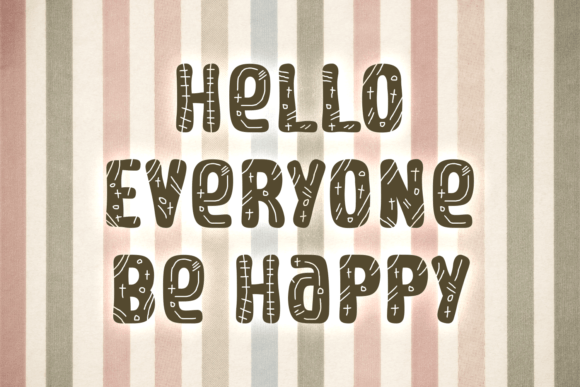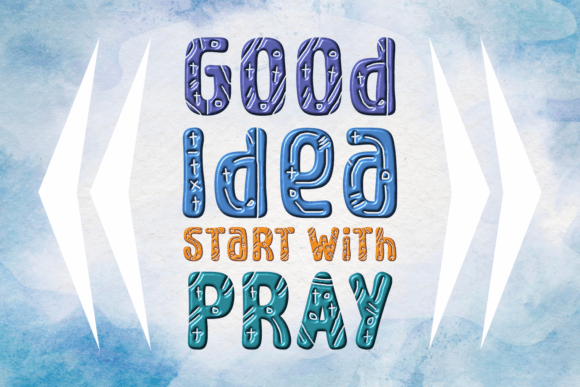
Introducing Cross Font: The Cute and Quirky Decorative Font with a Religious Twist
Are you tired of using the same old fonts in your designs? Do you want to add a touch of joy and whimsy to your creative projects? Look no further than Cross Font, a delightful and quirky decorative font that incorporates religious elements. With its unique blend of playfulness and spirituality, Cross Font is sure to make your designs stand out from the crowd.
What is Cross Font?
Cross Font is a beautiful display font that features a cute and quirky design with a subtle religious twist. The font is perfect for designers and crafters who want to add a touch of personality to their work. With its bold and playful lines, Cross Font is ideal for use in a variety of creative projects, from greeting cards and invitations to posters and social media graphics.
The Inspiration Behind Cross Font
The inspiration behind Cross Font is the desire to create a font that is both fun and meaningful. The font’s creator wanted to design a font that would bring a smile to people’s faces while also conveying a sense of spirituality and connection to something greater. The result is a font that is both joyful and uplifting, making it perfect for use in a wide range of creative projects.
Key Features of Cross Font
So, what makes Cross Font so special? Here are just a few of its key features:
• Cute and Quirky Design: Cross Font features a unique and playful design that is sure to add a touch of whimsy to your designs.
• Religious Elements: The font incorporates subtle religious elements, making it perfect for use in projects that require a touch of spirituality.
• Bold and Playful Lines: The font’s bold and playful lines make it ideal for use in a wide range of creative projects, from greeting cards and invitations to posters and social media graphics.
• Easy to Read: Despite its playful design, Cross Font is easy to read, making it perfect for use in projects where clarity is important.
Font Name Cross Font
Author Yan (7NTypes)
In conclusion, Cross Font is a unique and versatile decorative font that is perfect for designers and crafters who want to add a touch of joy and whimsy to their creative projects. With its cute and quirky design, subtle religious elements, and bold and playful lines, Cross Font is sure to make your designs stand out from the crowd. So why not give it a try and see the difference it can make in your work?